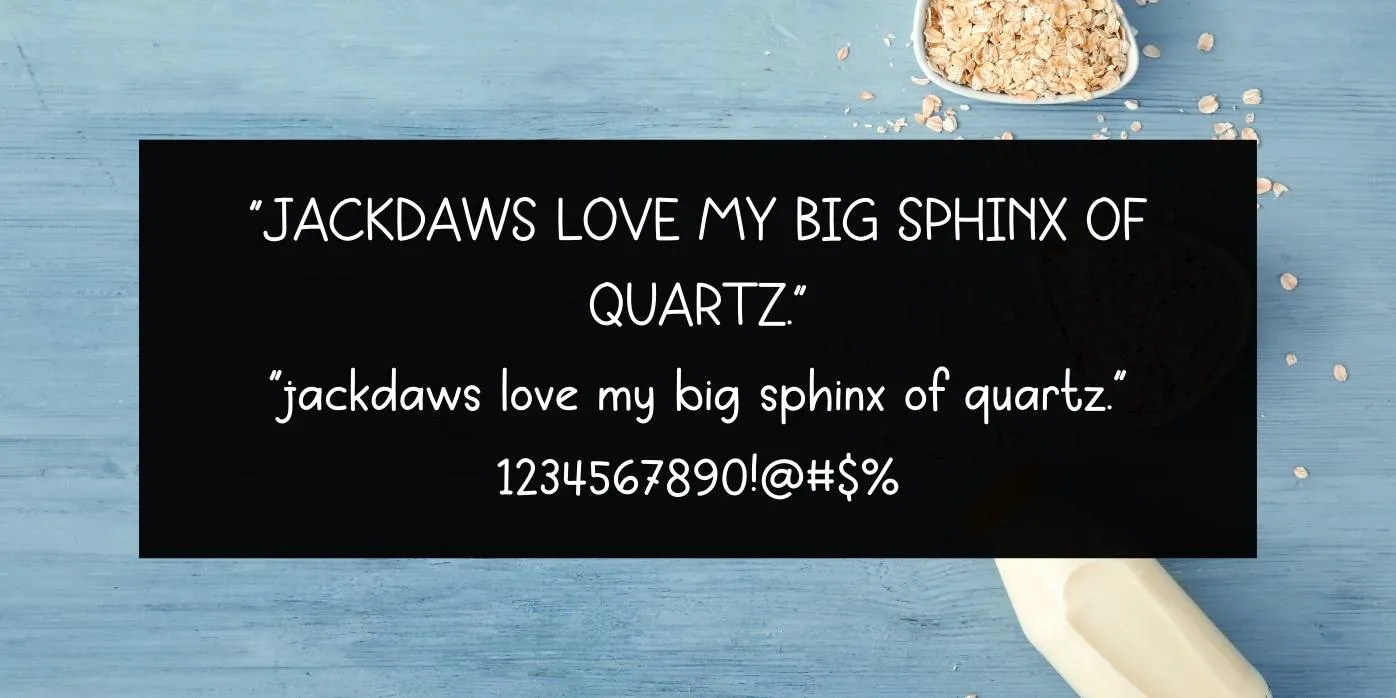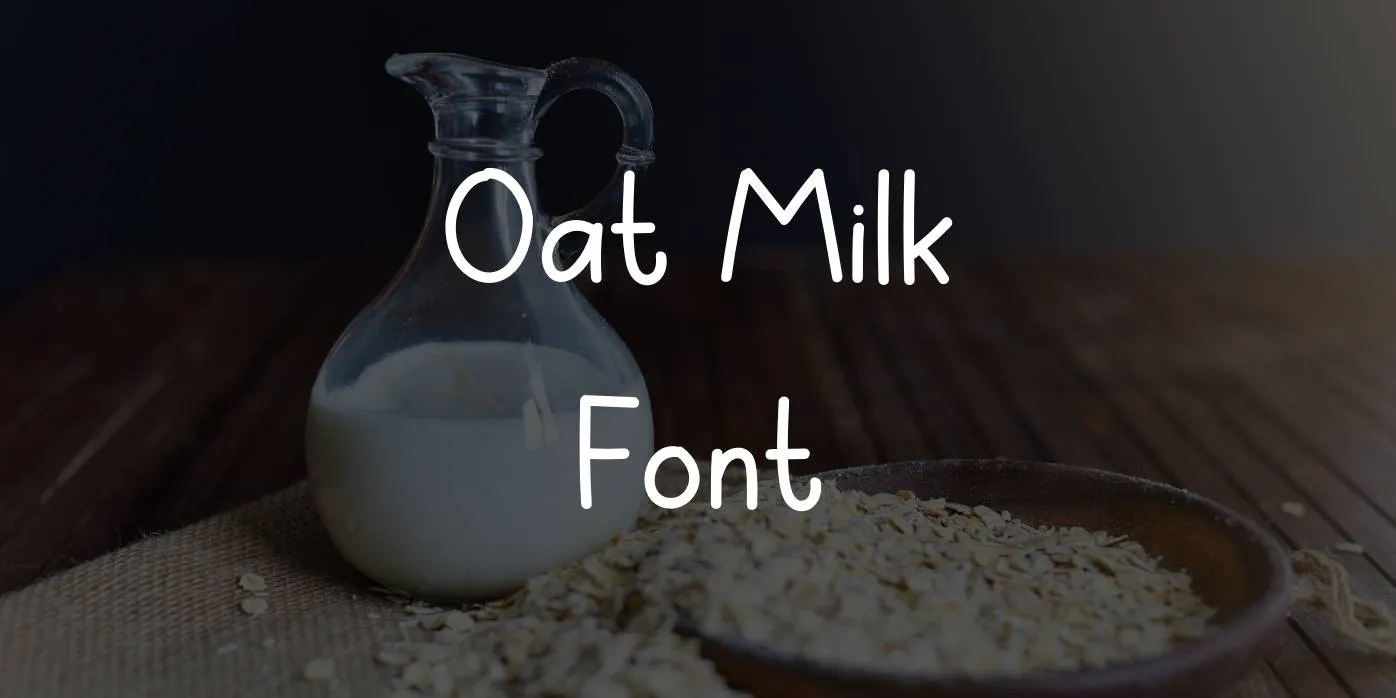
Oat Milk Font
Oat Milk Font is a script typeface created by Swiss designer Max Miedinger in 1957. The design was inspired by the work of German typographer Rudolf Koch, and is characterized by its clean, modern lines. This font is one of the most popular script fonts in use today and has been used in countless branding and design projects. This Font was originally released by the Swiss foundry Haas Typefoundry and is now available from a variety of sources.
If you’re looking for a clean, modern script font for your next project, this font is a great option.